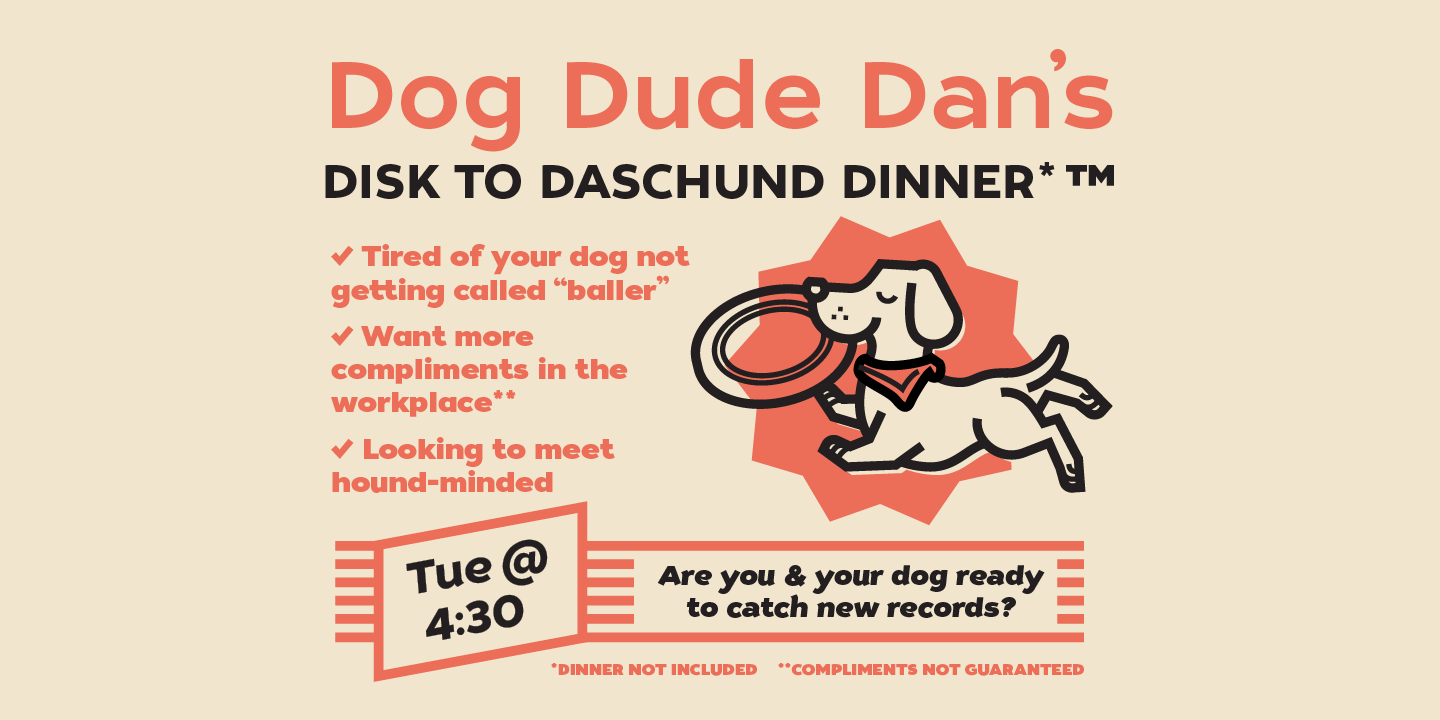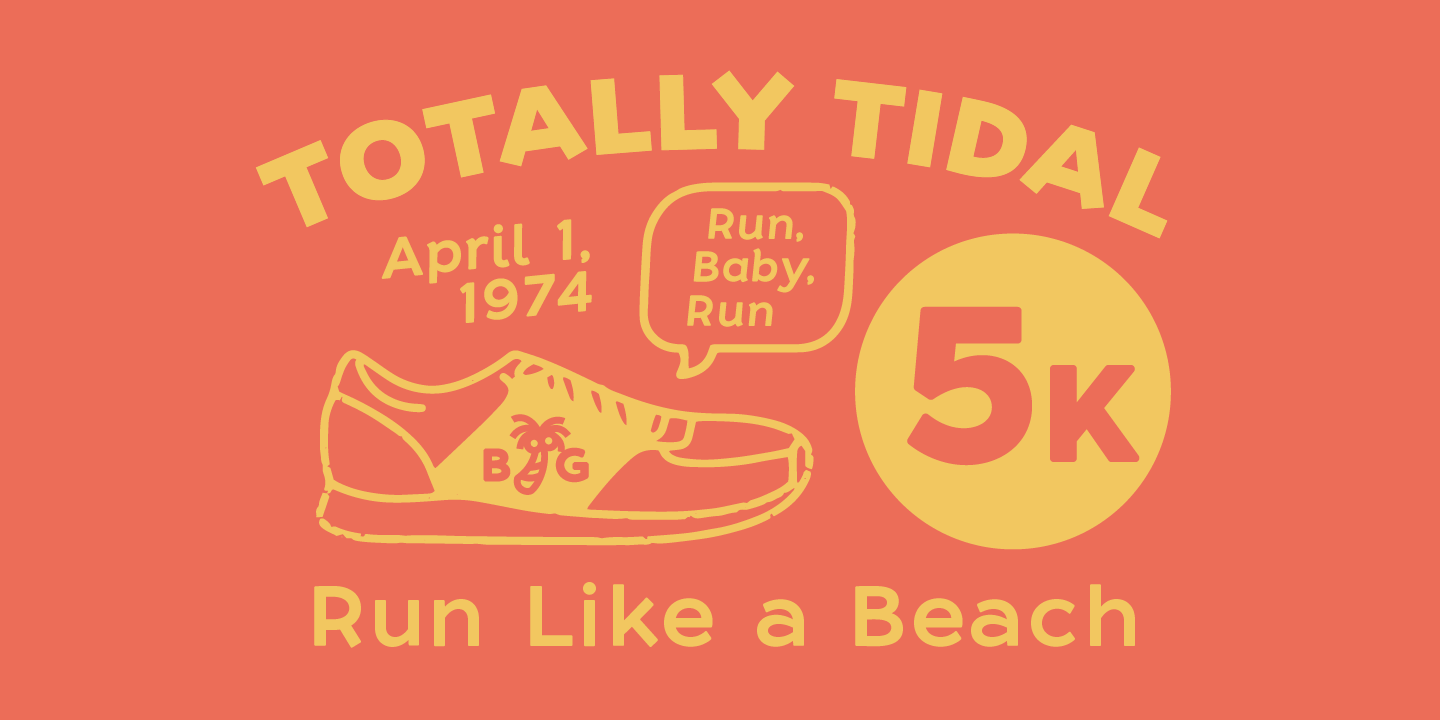
Tide Sans
About Tide Sans
Tide Sans' fresh, carefree look makes you almost forget that you're staring at a monitor and not on the beach. When Tide Sans is not surfing, you'll find it at community college parties, giving free henna tattoos, or tossing a Frisbee…